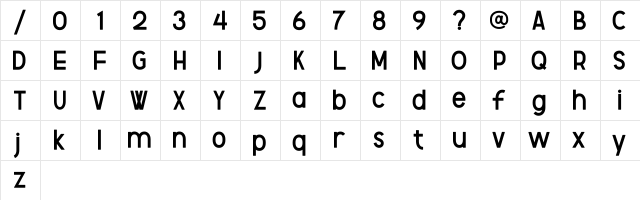
Monolog free
Design Context for Monolog Typeface
Monolog uses fixed-width spacing throughout, giving it the structured, systematic character associated with coding environments and technical documentation.
Pro Tip: Pair Monolog with a proportional sans for UI contexts where code-style labels and regular body copy need to coexist.